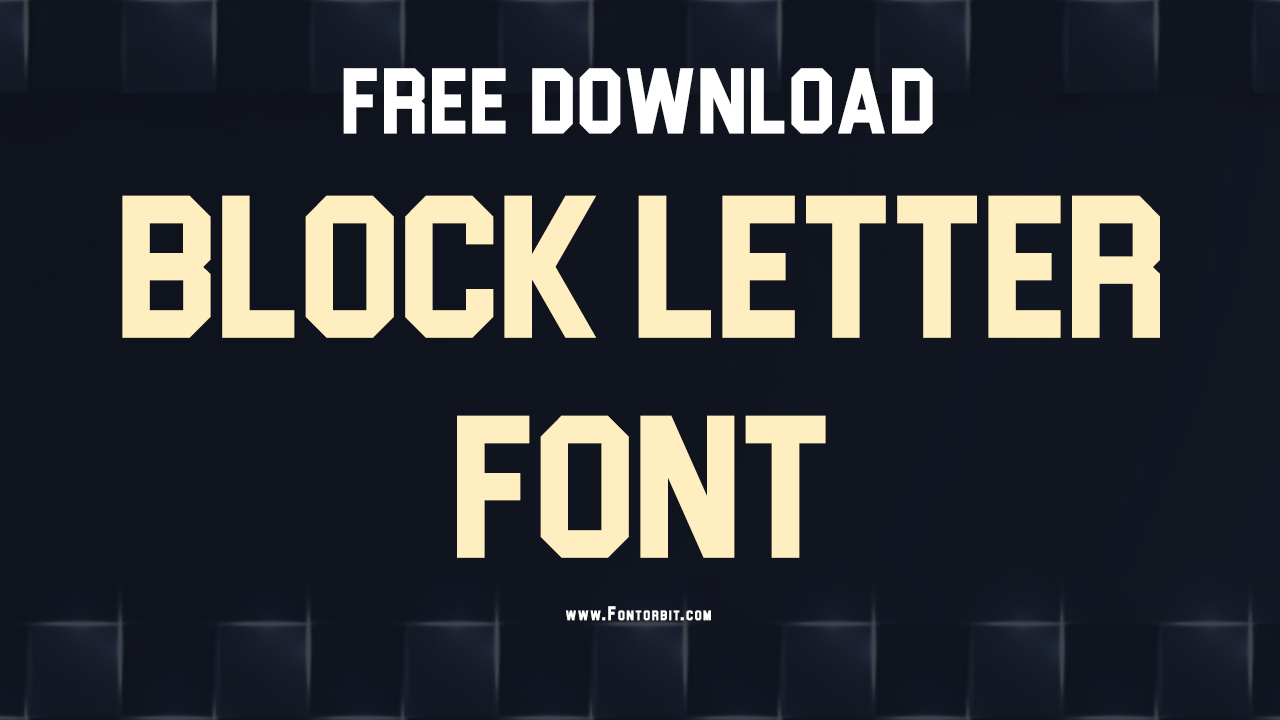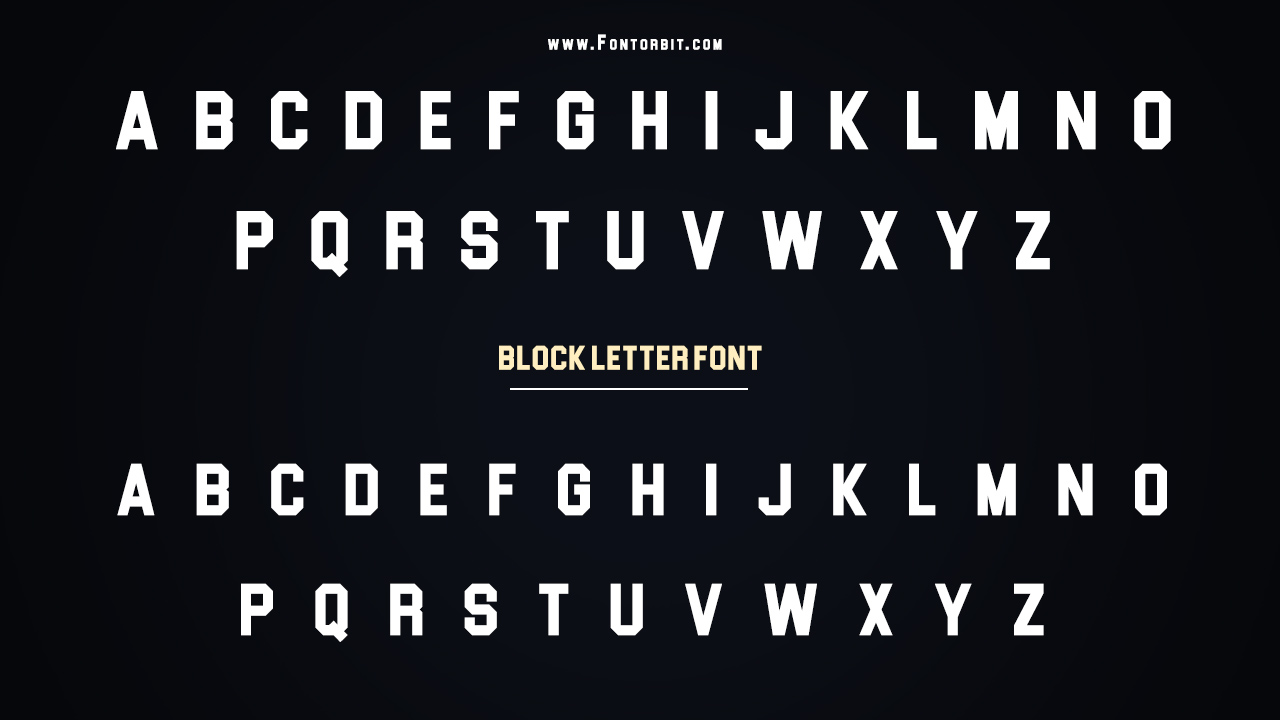
Blockletter is a bold, impactful font designed by Sharkshock. Published in 2014, it belongs to the Sans Serif family. Blockletter is characterized by its bold, geometric style and clean lines, making it ideal for posters, signs, and headlines.
Notable Uses Of Blockletter
Blockletter has been used in numerous design projects, ranging from logos to large-scale advertising campaigns. Notable uses include:
- Posters for concerts or events
- Branding materials for tech companies
- Signage and billboards in urban settings
The font’s thick, blocky design ensures visibility from a distance, making it perfect for outdoor advertisements and attention-grabbing headlines.
Blockletter is highly versatile, best used for:
- Headlines and banners
- Logos and branding
- Merchandise design (such as T-shirts)
This font should be avoided for body text or small print due to its bold structure, which can reduce readability at smaller sizes.
Blockletter is an excellent choice for projects requiring a bold, attention-grabbing font. Its versatility and striking design make it a go-to option for any designer looking to make a statement. Whether you’re working on branding, posters, or digital content, Blockletter can help elevate your design.
2.What Type Of Font Is Blockletter?
Blockletter is a sans-serif, block-style font.
4.Is Blockletter Suitable For Body Text?
No, Blockletter is too bold for body text but works well for headings and titles.
6.What Are The Best Use Cases For Blockletter?
It’s ideal for posters, signs, logos, and branding.
7.Can I Use Blockletter In A Logo?
Yes, its bold and clean design makes it perfect for logos.